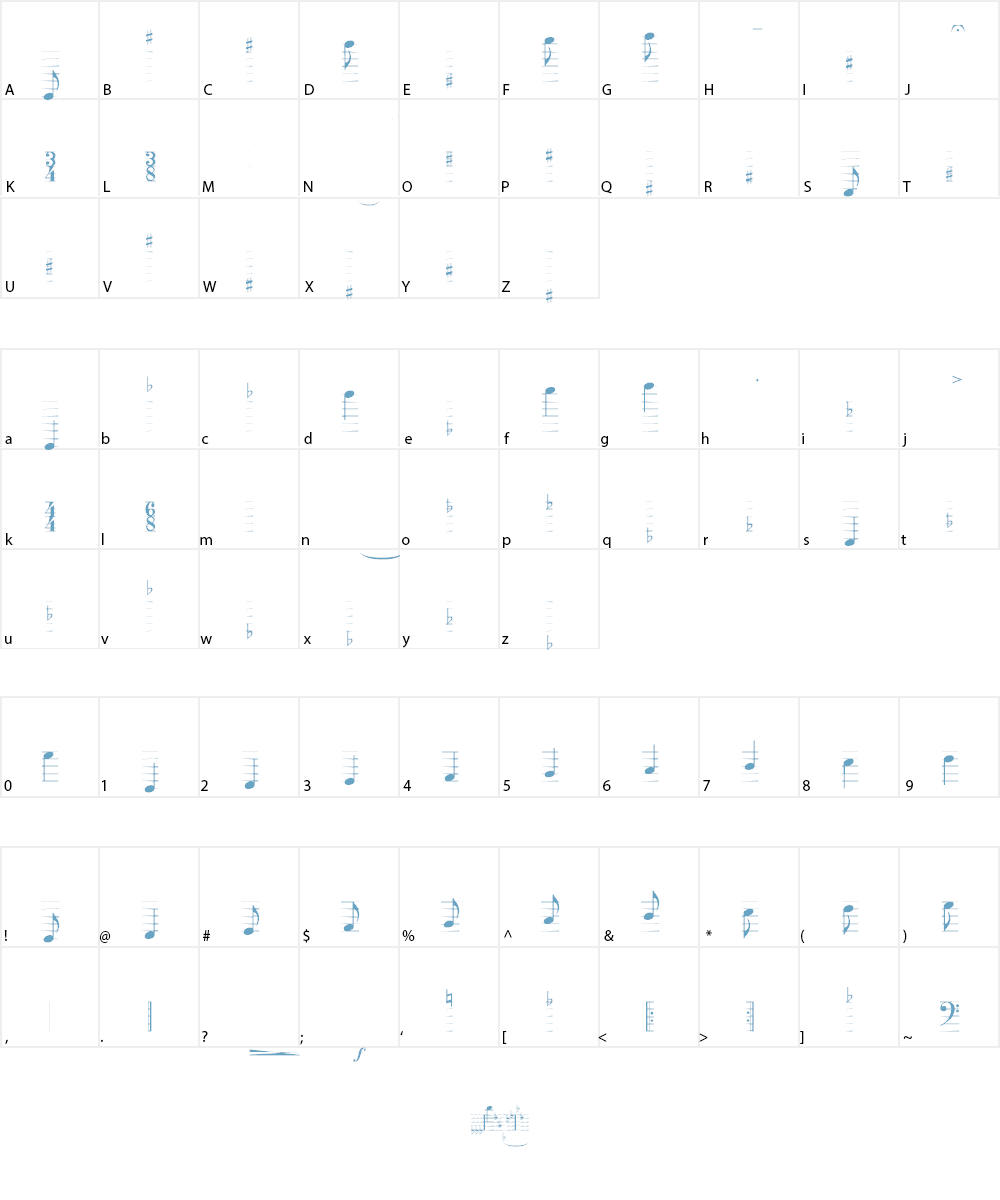
The best, free, music composing font on the web. Compose scores, even ones with a grand staff, in your favorite text-editor of choice or in your browser. Ideal for hobbyists and students alike looking for a free, easy to learn, easy to use alternative to Sibelius and Finale.